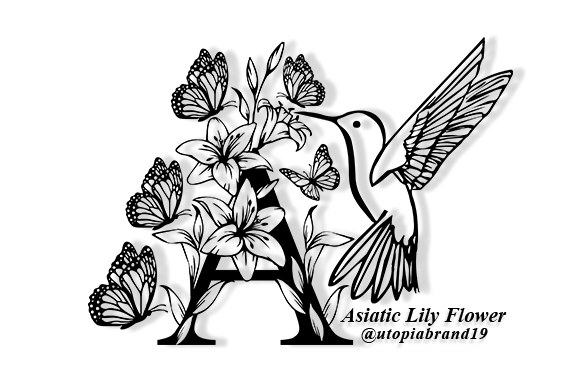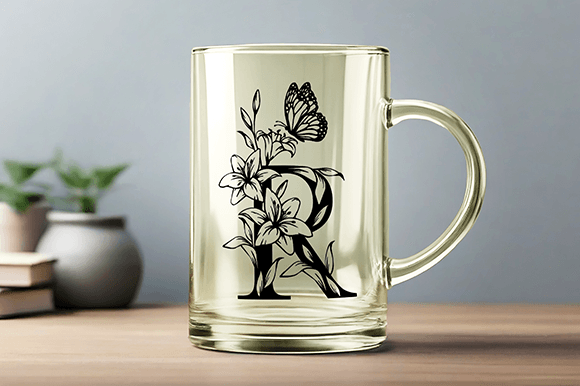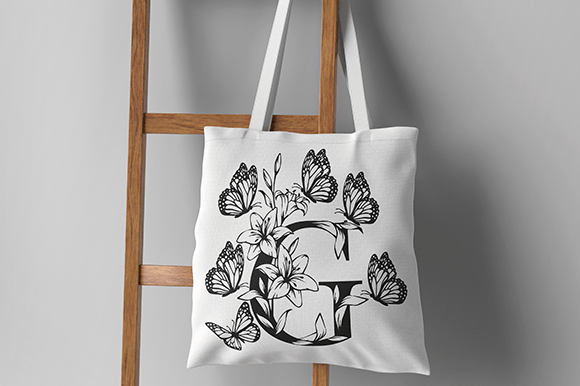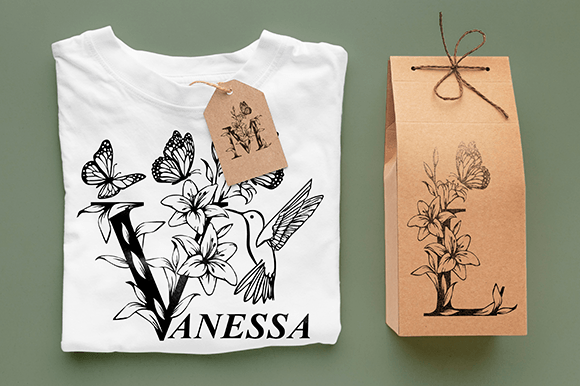
Asiatic Lily Flower Monogram Font
About the Asiatic Lily Flower Monogram Font
Meet Asiatic Lily Flower Monogram Font, a stunning font that brings a touch of elegance and professionalism to any design. Asiatic Lily Flower Monogram is an elegant decorative font, featuring lovely ornaments. Fall in love with its authentic feel and use it to create gorgeous wedding invitations, beautiful stationary art, eye-catching social media posts, and cute greeting cards.
Asiatic Lily Flower Monogram excels in applications requiring a touch of delicate elegance, such as wedding stationery, logos for boutiques, or branding for high-end cosmetics. Its ornate details make it ideal for short headlines, social media graphics, and packaging designs where visual impact is key. However, its decorative nature makes it unsuitable for body text or UI elements; readability suffers at smaller sizes.
This font’s personality is undeniably elegant and romantic. To maintain visual harmony, pair it with a clean, simple sans-serif like Lato for body text or a classic serif like Garamond for a more traditional feel. A playful script font could also add a charming contrast, depending on the desired effect.
Consider pairing it with a geometric sans-serif font for a modern twist, balancing its organic forms with crisp, clean lines. This juxtaposition creates a sophisticated and memorable visual identity.
Asiatic Lily Flower Monogram Font Usage Examples
Asiatic Lily Flower Monogram Font Example